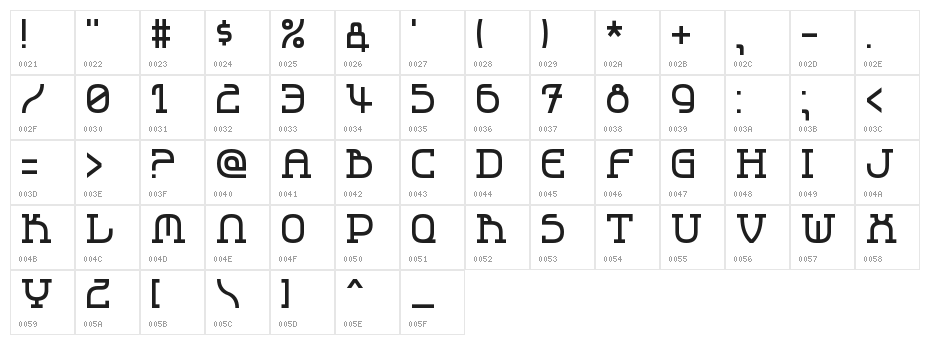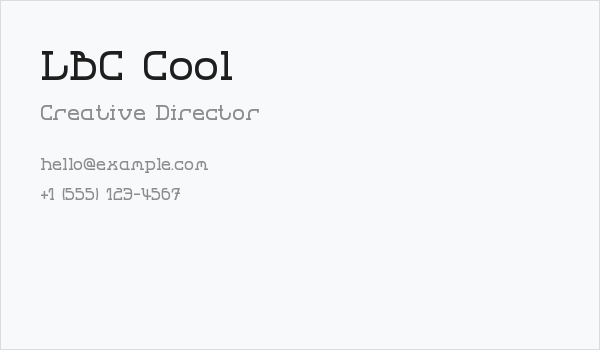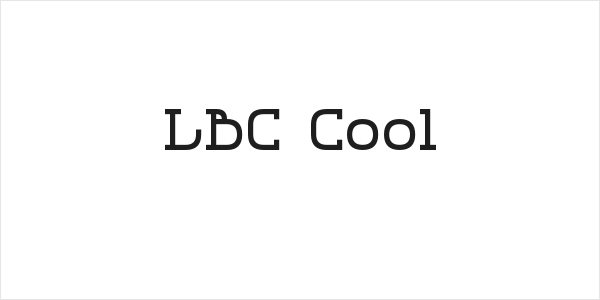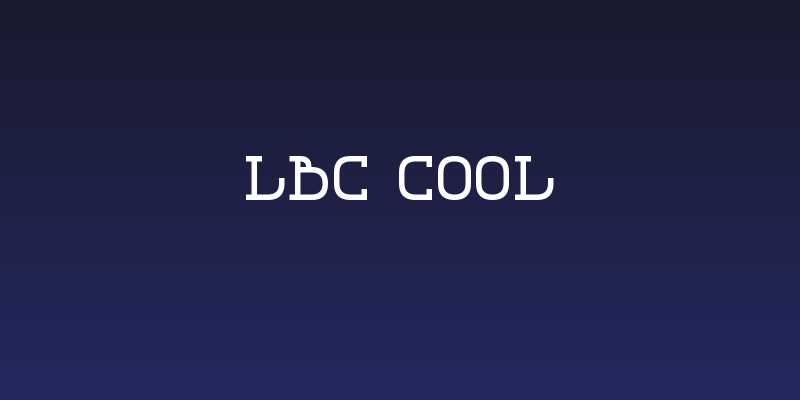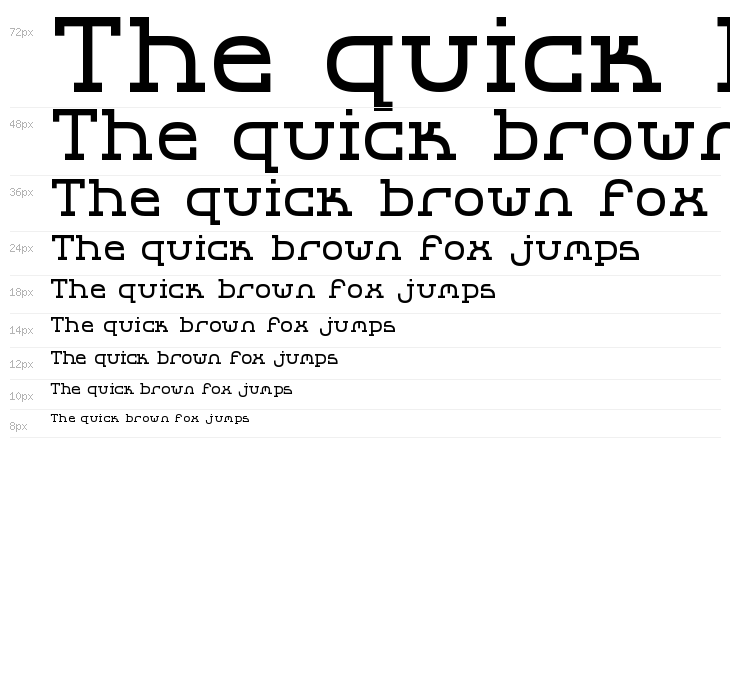
LBC Cool Font
LBC Cool Description
This font features a unique blend of modern and retro elements, characterized by its rounded, geometric shapes and consistent stroke width. The uppercase letters display a distinct style with curved terminals and a slight slant, giving them a playful yet structured appearance. The lowercase letters maintain a similar aesthetic, with rounded forms and open counters that enhance readability. The numerals are bold and clear, with a uniform height that aligns well with the uppercase characters. Special characters are designed with the same attention to detail, ensuring a cohesive look across all glyphs. This font's overall design is both functional and visually appealing, making it suitable for a variety of applications.